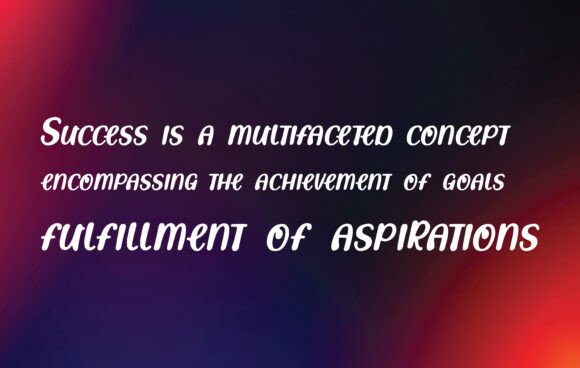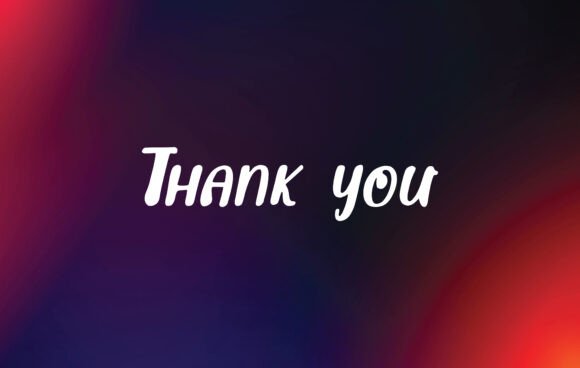
Introduction to Josefa Font
As a designer, you know the thrill of staring at a blank canvas, waiting for inspiration to strike. And then, suddenly, it hits you – a spark of creativity that sets your imagination ablaze. For me, it was a quiet morning, surrounded by the soft glow of my computer screen, when I stumbled upon the Josefa Font. Its elegant, handwritten script immediately caught my eye, and I knew I had to learn more.
What I discovered was a font that not only adds a touch of sophistication to any design, but also offers a level of versatility that’s hard to find in other high-quality fonts. With a free download option and a transparent background, the Josefa Font is the perfect design resource for any creative project. Whether you’re working on a logo, branding, or quote, this beautiful font has the potential to elevate your design to new heights.
As a valuable addition to any designer’s toolkit, the Josefa Font is a must-have for anyone looking to take their creative ideas to the highest level. Its unique, handwritten style is sure to make your designs stand out from the crowd, and its high-quality design ensures that it will remain a timeless classic for years to come.
Josefa Font
- High-quality, elegant script font ideal for creative projects and design resources.
- Transparent background and seamless scalability, making it suitable for various design applications.
- Perfect for wedding invitations, watercolor designs, and other creative projects requiring a touch of elegance.
- Comes with a wide range of language support, including Latin and Cyrillic alphabets.
Honest Review: Josefa Font
As a designer, I’m always on the lookout for high-quality fonts to elevate my creative projects. Recently, I stumbled upon the Josefa Font, and I’m excited to share my thoughts on this design resource.
- ✨ High-quality design: The Josefa Font boasts a beautiful, elegant design that’s perfect for a variety of creative projects.
- ✨ Transparent background: The font’s transparent background makes it easy to layer and combine with other design elements.
- ⚠️ Limited character set: While the font is beautiful, the character set is relatively limited, which may be a drawback for designers who need a wider range of characters.
- ⚠️ Not suitable for large-scale text: Due to its elegant design, the Josefa Font may not be the best choice for large-scale text or headlines.
Overall, I’m impressed with the Josefa Font. Its high-quality design, free download, and transparent background make it a valuable addition to any designer’s toolkit. While it may have some limitations, I think it’s a great choice for creative projects that require a touch of elegance and sophistication.
Josefa Font
The Josefa Font is a high-quality design resource that offers a free download with a transparent background, making it perfect for any creative project.
Tips for Getting the Most Out of Josefa Font
To get the most out of the Josefa Font, use it sparingly and in combination with other design elements to create a cohesive look. You can also experiment with different font sizes and colors to add emphasis and visual interest.
The Josefa Font is ideal for a variety of creative projects, including wedding invitations, business cards, and product packaging. Its elegant and sophisticated design makes it perfect for any project that requires a touch of luxury.